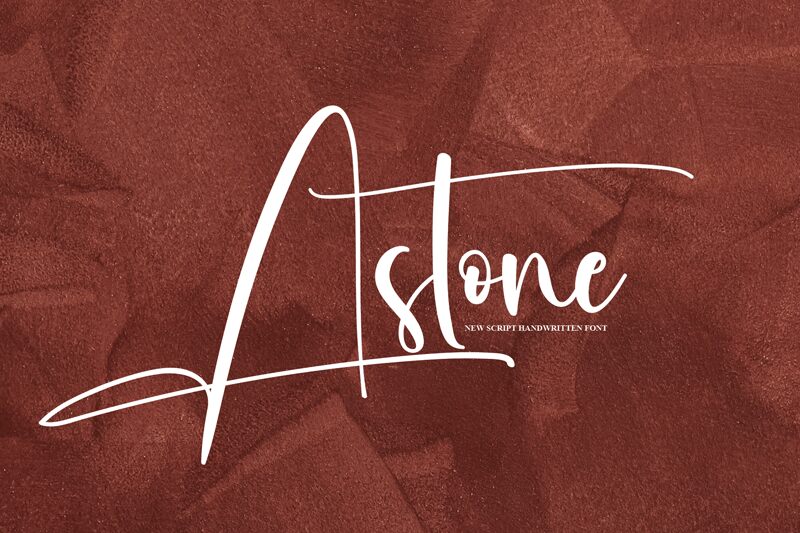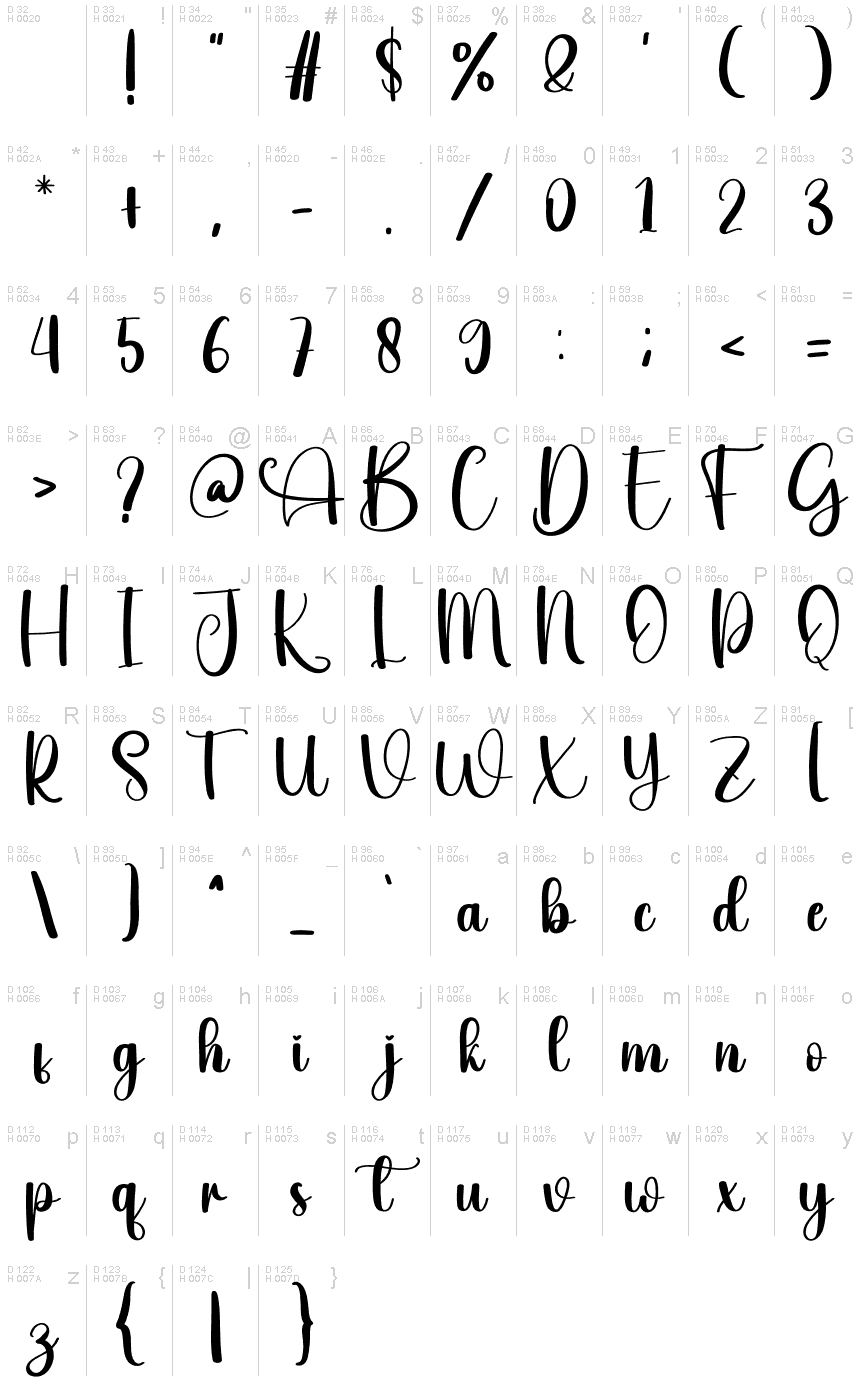
Astone
Astone, crafted by Scratchones, is a captivating signature font that exudes elegance and sophistication. With its semi-light weight, it adds a graceful touch to any creative project.
Perfect for wedding invitations, luxury branding, and fashion editorials, Astone effortlessly conveys refinement and exclusivity. Its stylish curves and fluid strokes lend an air of authenticity to personal branding or logo designs. Whether used in digital or print media, this signature font leaves a lasting impression on any audience.
Elevate your projects with Astone's timeless charm and make your mark with impeccable style.